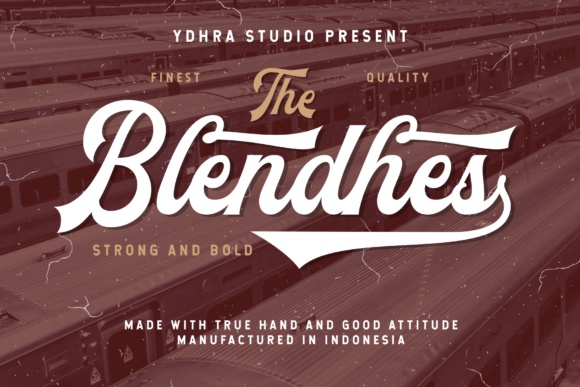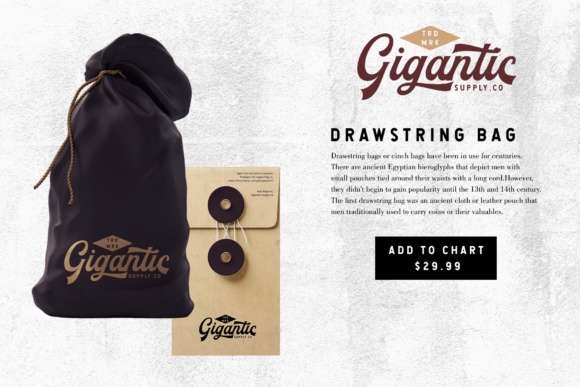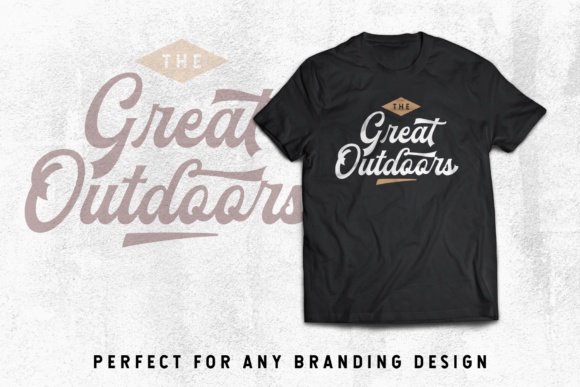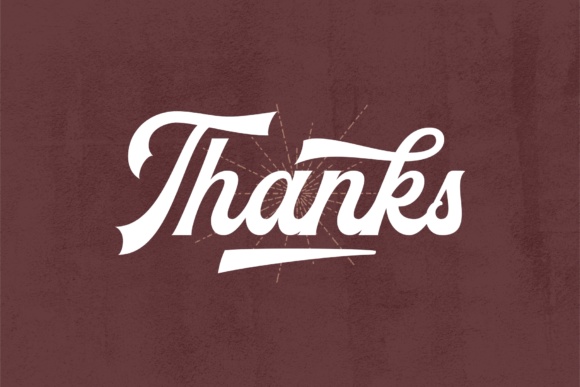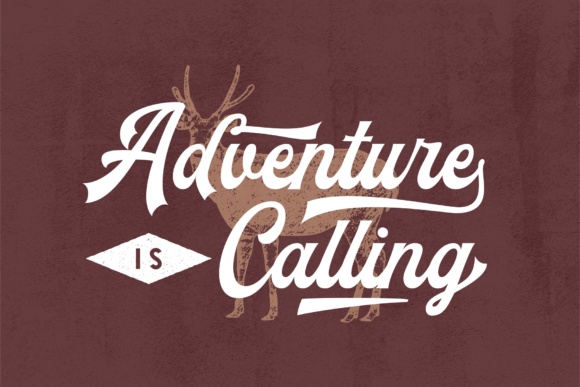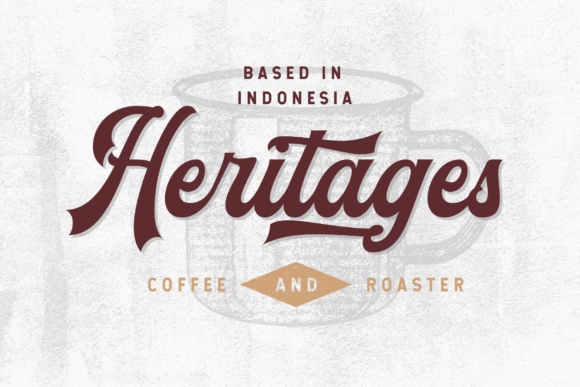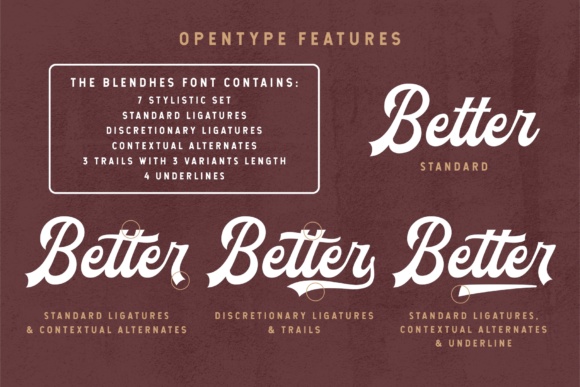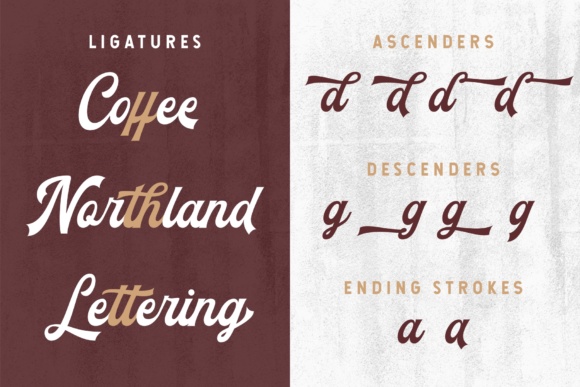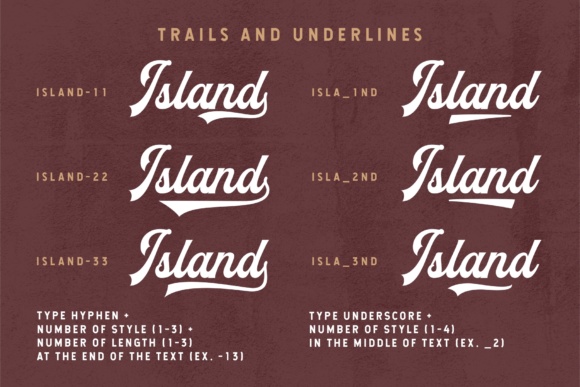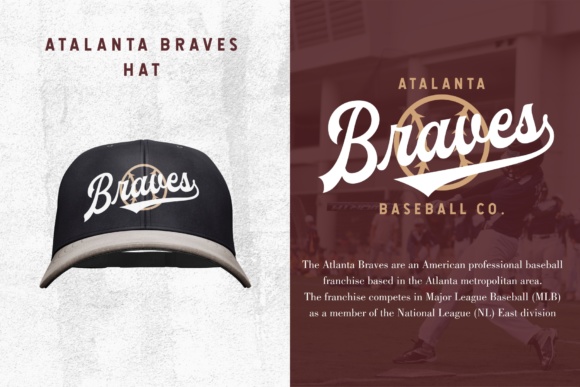
The Blendhes Font
About The Blendhes Font
The Blendhes is a strong, bold script font inspired by vintage baseball sport designs. It gives you many options to create something awesome. Mix and match the alternate characters to add an attractive feel to your design.